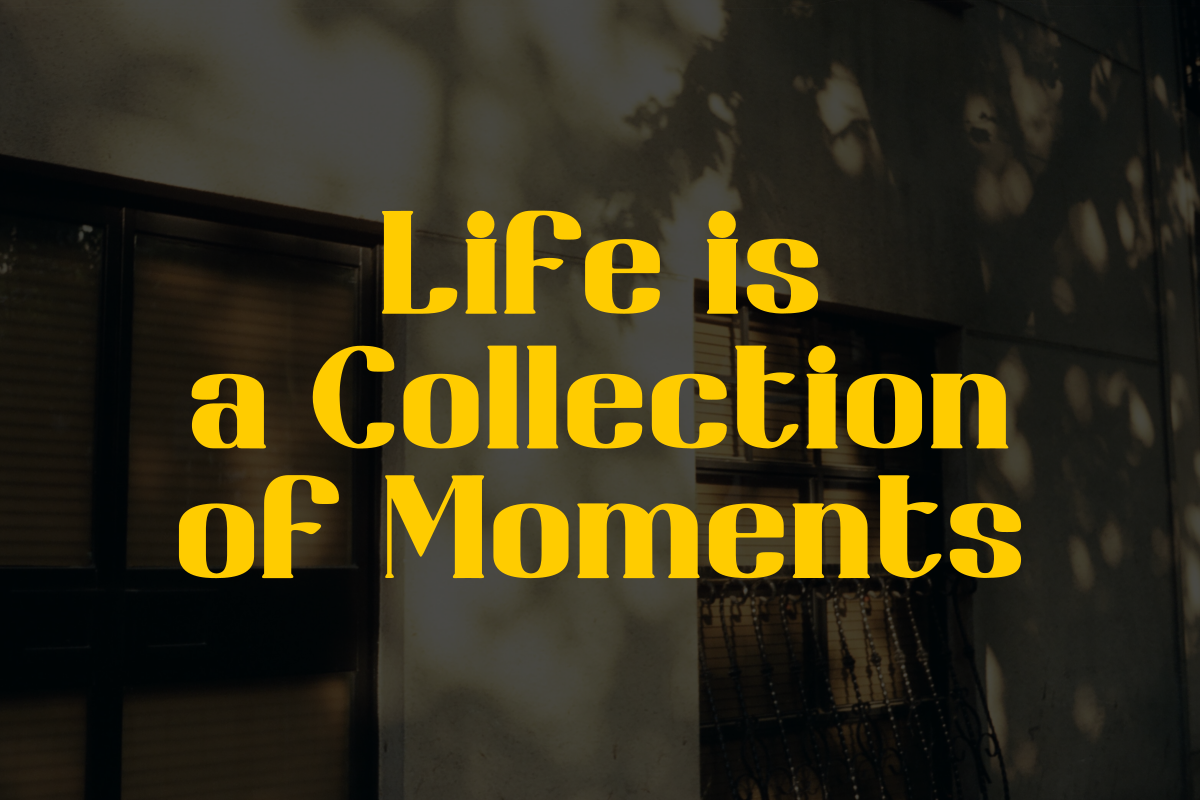
Bongaty – Serif Font is a cool, thick lettered and assertive display font. It features the perfect amount of trendiness, this font will make your designs come to life. Bongaty is PUA encoded which means you can access all of the glyphs and swashes with ease!
Bongaty